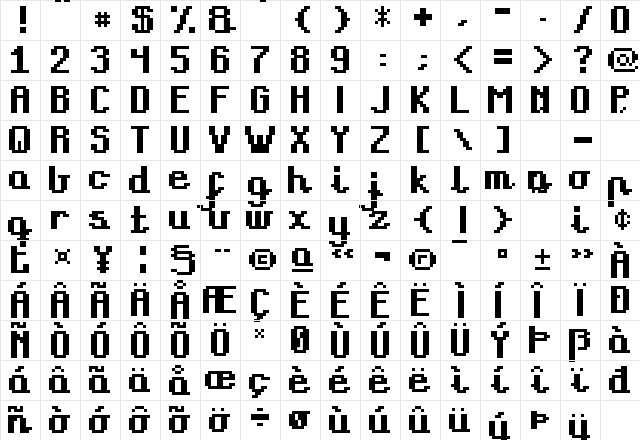
Teachers Pet Bold Regular
Design Context for Teachers Pet Bold Typeface
Teachers Pet Bold takes a measured approach to typography — its balanced proportions and neutral character make it a reliable workhorse for both digital and print work. The heavy weight commands attention and anchors typographic hierarchies.